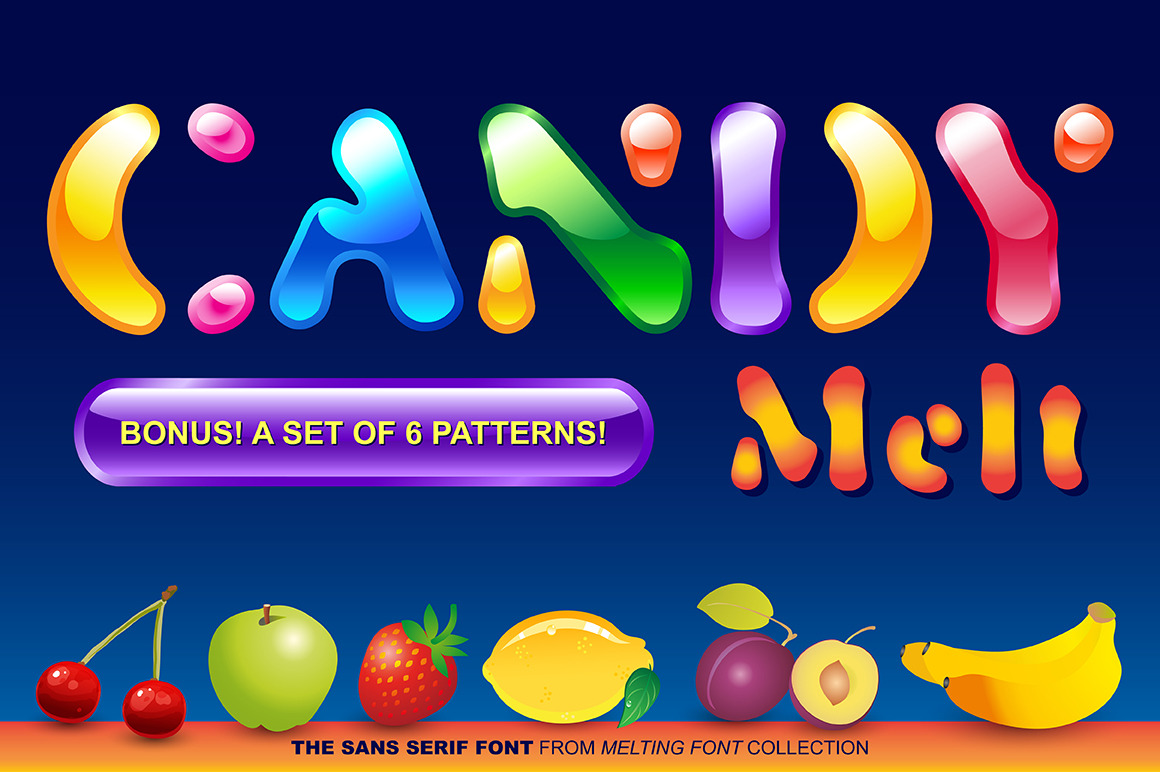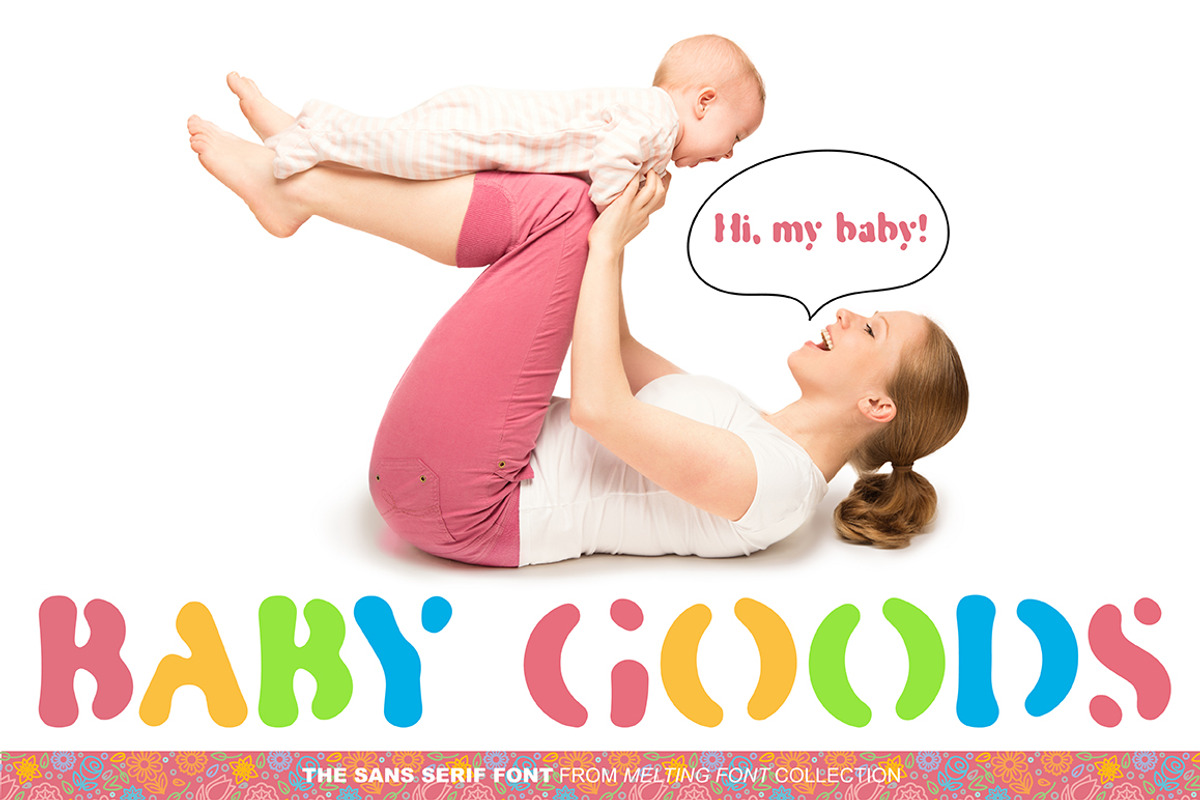
CandyMelt Sans Serif Font
We, GalaStudio (Lilia & Galina) present the font CANDY MELT – the second of our new MELTING FONTS collection. We begin to design a new font by creating its visual and conceptual image. The life of modern man has changed dramatically. Nowadays we can afford to dream more, to dare more and to implement our ideas. The font as an important part of environmental design, reflects contemporary reality. Our intention was to create a font with rounded melted-like shapes, like sucking candy, to make it "tasty" and playful. The CANDY MELT font is rather bold. This feature lets the graphic designer play with the letters, filling them with a variety of textures and patterns. The CANDY MELT is ideal for children' books titles, textbooks, notebooks, different brochures and advertising. We hope that GalaStudio fonts will add attractiveness and efficiency to your product.
Numbers, additional glyphs & basic punctuation are included.
PERFECT FOR: using in branding projects, children' books titles, textbooks, notebooks, different brochures and advertising, homeware design, packaging design; magazines, posters and flyers titles; logos design, books design, fashion design, slogans etc. :)